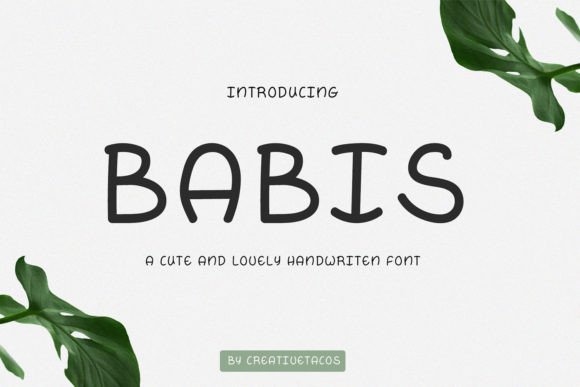
The Magical World of Babis Font: A Designer’s Dream Come True
Have you ever been in the middle of a design project, pouring your heart and soul into it, only to hit a roadblock when it comes to finding the perfect font? I certainly have! It was during one of those moments, working on a branding project for a client who wanted something elegant yet playful, that I stumbled upon Babis Handwritten Font. And let me tell you, it was like a breath of fresh air!
A First Impression: What Makes Babis Font Special
Babis Handwritten Font is a natural, magical, and flowing handmade font that brings a touch of elegance to any creative project. With its comprehensive set of uppercase and lowercase letters, numbers, punctuation, symbols, and multilingual support, this font is a versatile tool for designers, crafters, and creative hobbyists alike.
So, what do I love about Babis Font? Here are a few highlights:
• ✨ Elegant yet playful: Babis Font strikes the perfect balance between sophistication and whimsy, making it ideal for a wide range of design projects.
• ✅ Multilingual support: With support for multiple languages, this font is perfect for global brands or projects with an international audience.
• ✅ Comprehensive character set: From uppercase and lowercase letters to numbers, punctuation, and symbols, Babis Font has everything you need to create stunning designs.
Now, no font is perfect, and Babis Font has a few minor quirks:
• 🤔 Limited use in very formal contexts: While Babis Font is elegant, it may not be suitable for very formal or corporate designs that require a more traditional look and feel.
• ⚠️ Requires careful use of OpenType features: To get the most out of Babis Font, you’ll need to familiarize yourself with OpenType features and glyphs, which can take some time.
The Story Behind Babis Font
Babis Font was created with the goal of providing designers with a unique, handmade font that would add a touch of elegance to any project. Inspired by traditional calligraphy and modern digital design, Babis Font is the perfect blend of old and new.
Author creativetacos
Is Babis Font suitable for body text? While Babis Font is beautiful, it’s best suited for headlines, titles, and short paragraphs. For body text, a more traditional font may be more suitable.